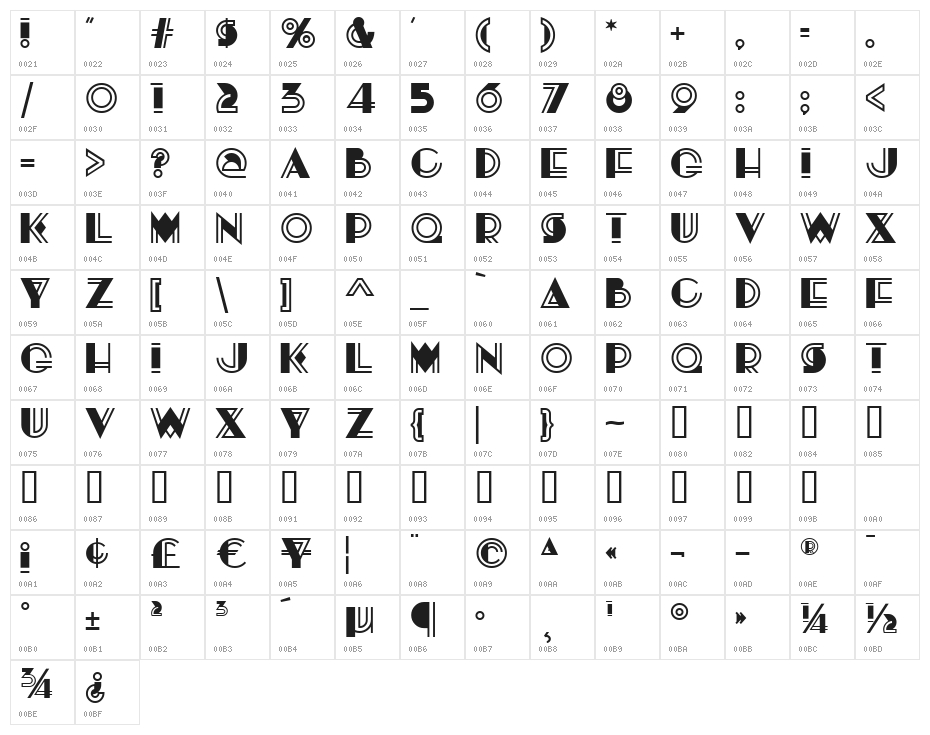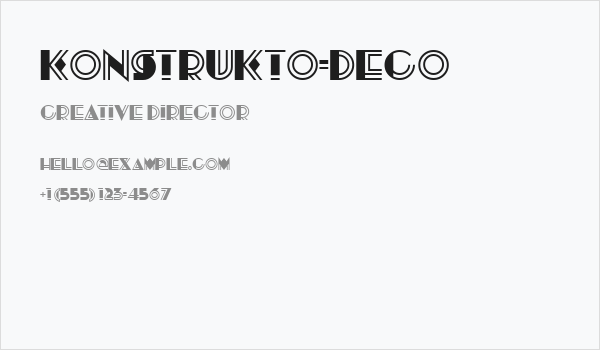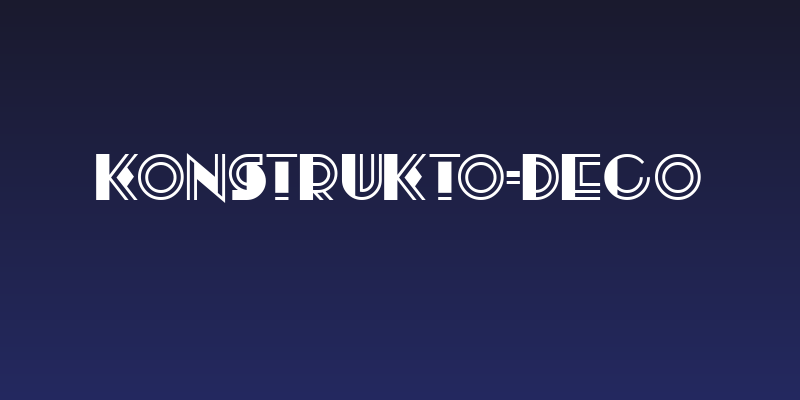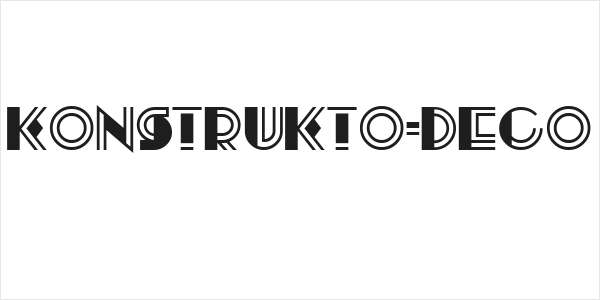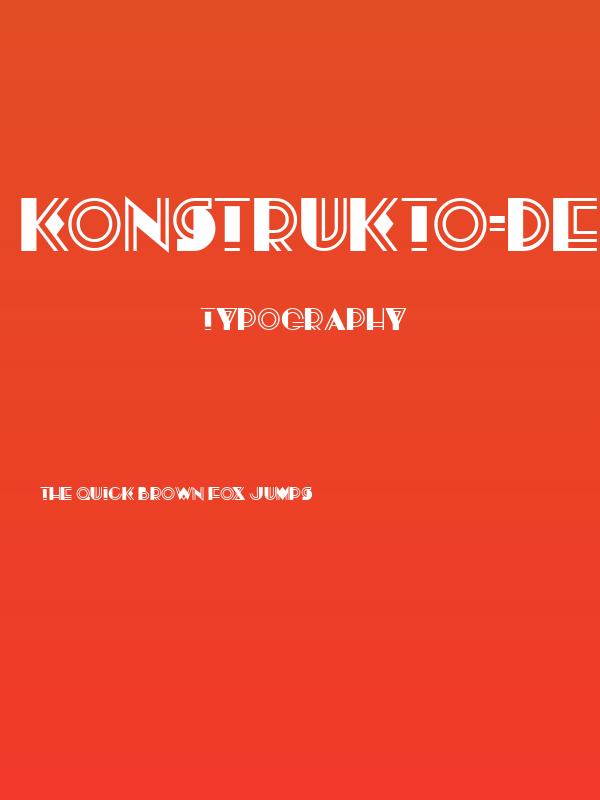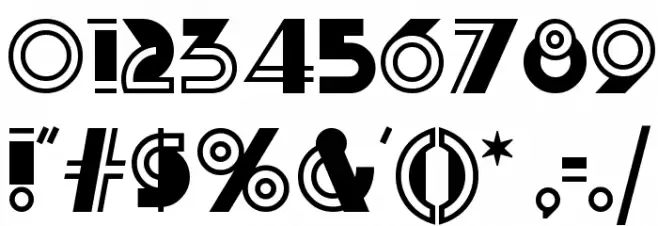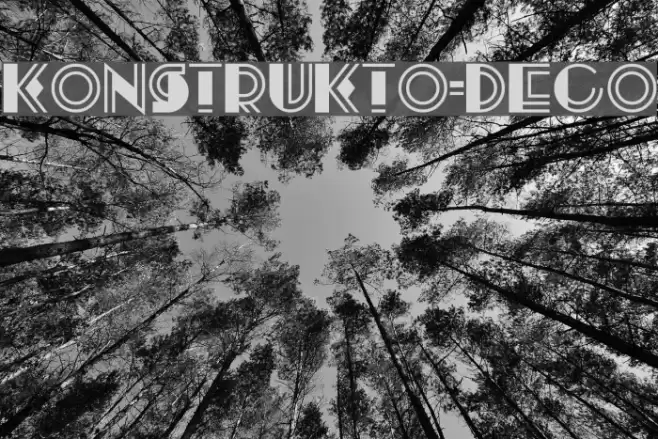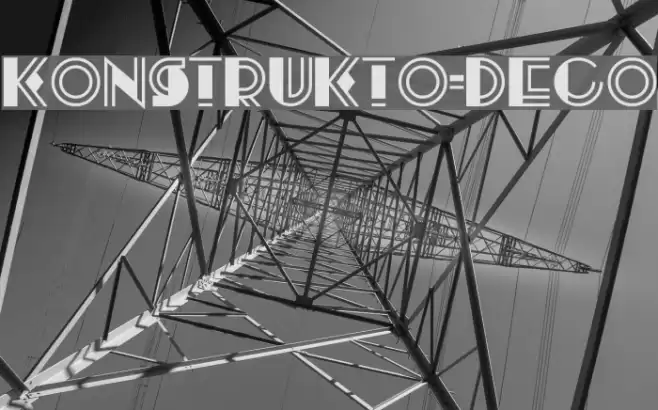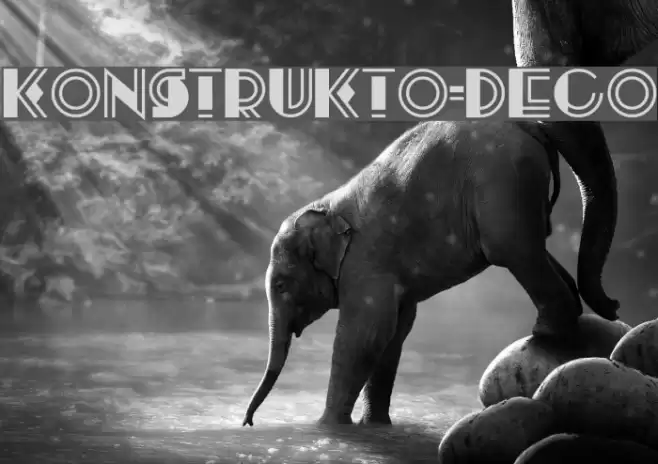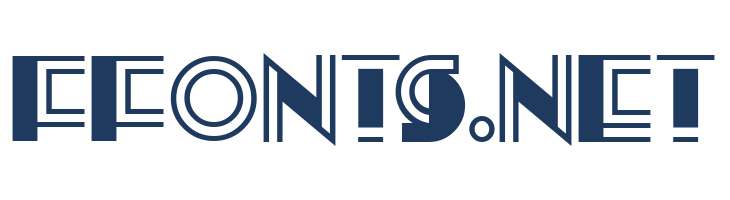
Konstrukto-Deco Font
✎ Art Deco
This font features a bold, geometric design with a strong Art Deco influence. The characters are constructed with a combination of thick and thin lines, creating a striking contrast that enhances its decorative appeal. The uppercase letters exhibit unique angular and circular elements, while the lowercase letters maintain a consistent style, adding to the font's cohesive look. Numbers and special characters follow the same design principles, ensuring uniformity across all glyphs. The overall style is both modern and vintage, making it versatile for various creative applications.
| Overall Style | Modern, Vintage, Decorative |
| Proposed Projects | Ideal for branding, posters, signage, and any project requiring a vintage yet modern aesthetic. |